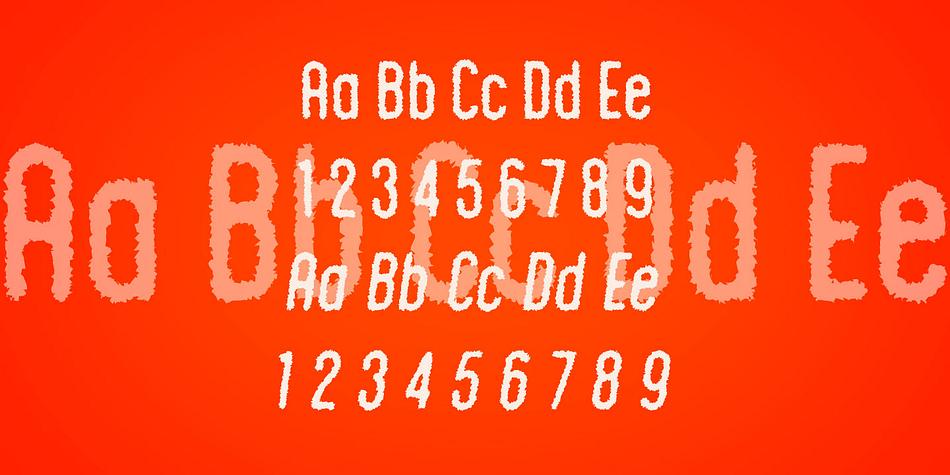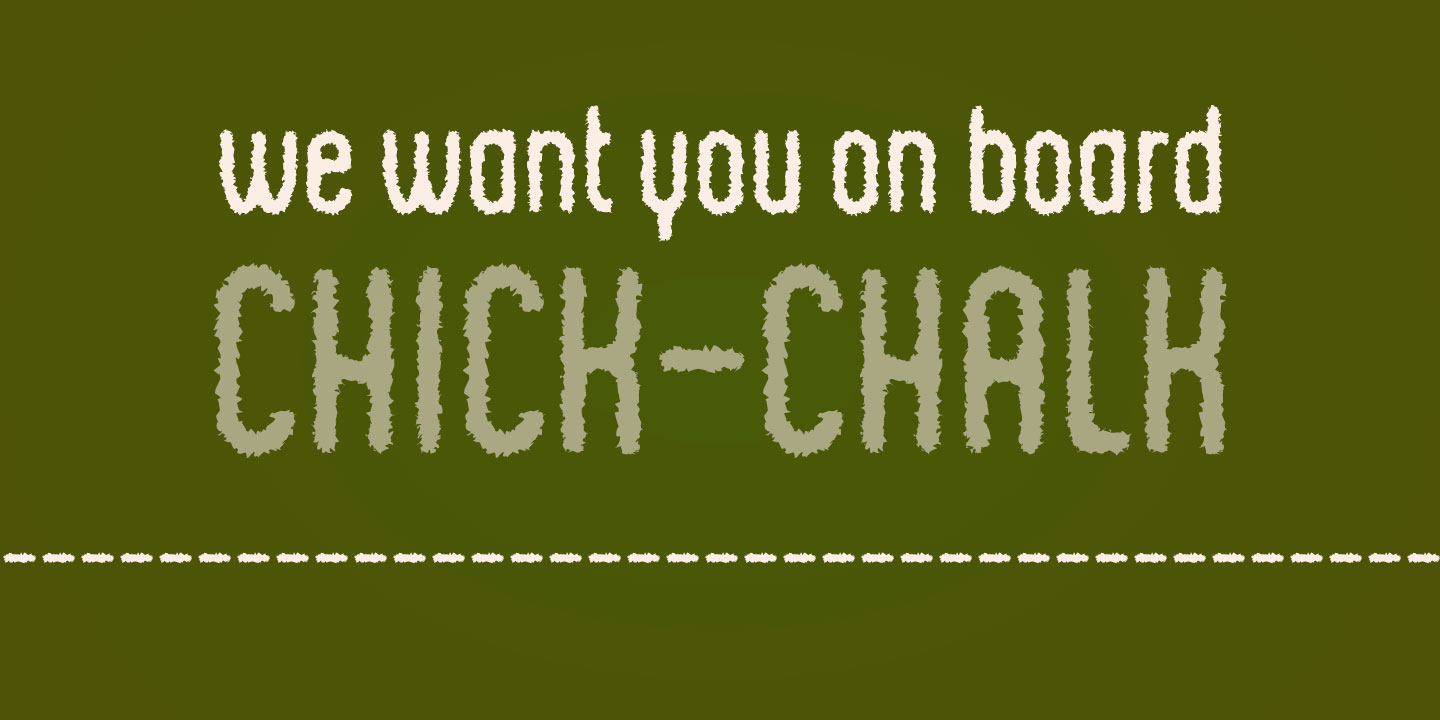
Chic Chalk is a display sans font family. This typeface has two styles and was published by Kustomtype.
Kustomtype’s ‘Chick Chalk’ font is a sans serif font family with a regular & oblique version. It contains all upper & lower cases. The ‘Chick Chalk’ family is coordinated into letterforms, metrics, and weights to work better together.
Why continue looking for old school types for your posters, advertising, text, design, artwork, headtext, editoral design, magazines, etc.?
‘Chic Chalk is Perfectly Imperfect’